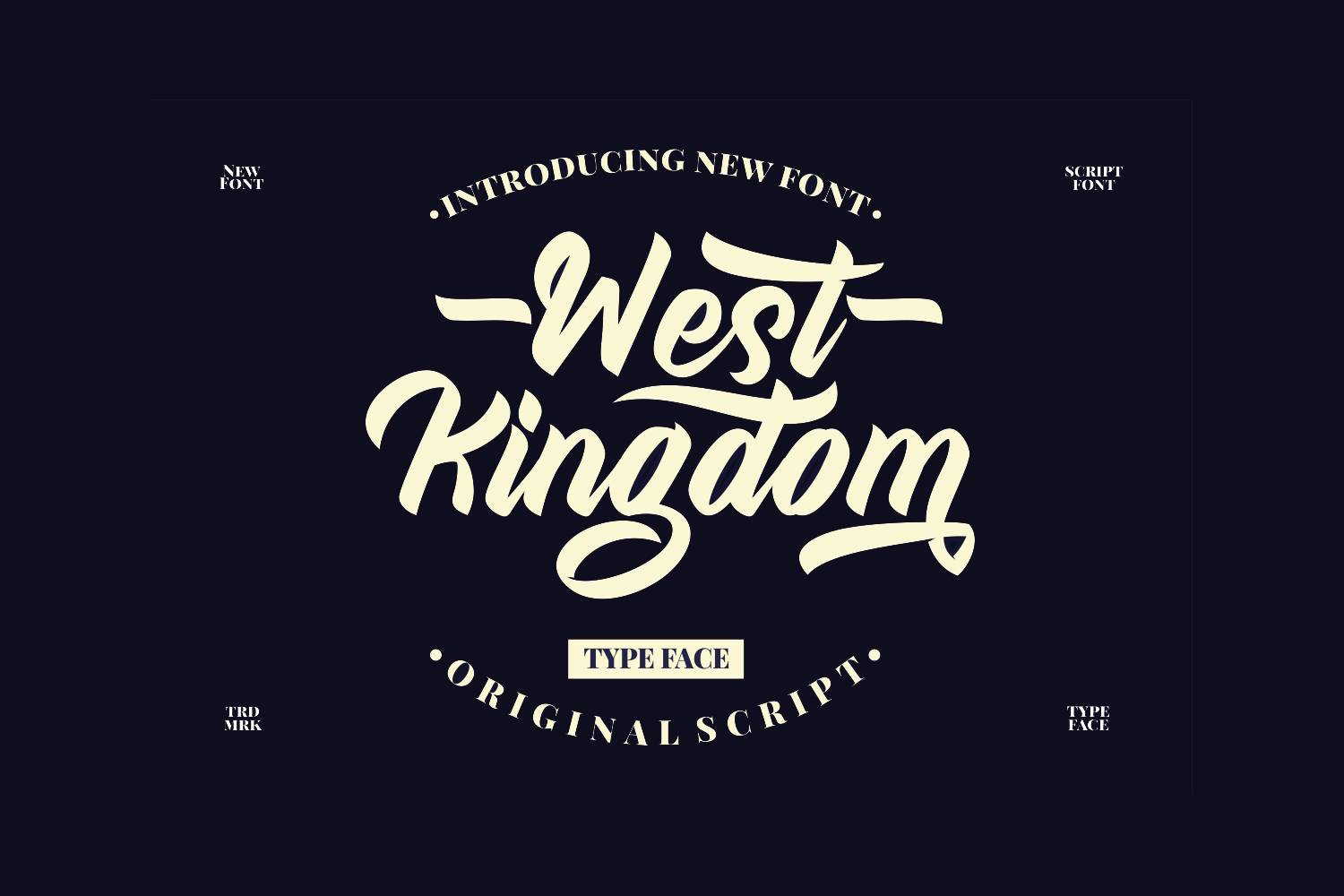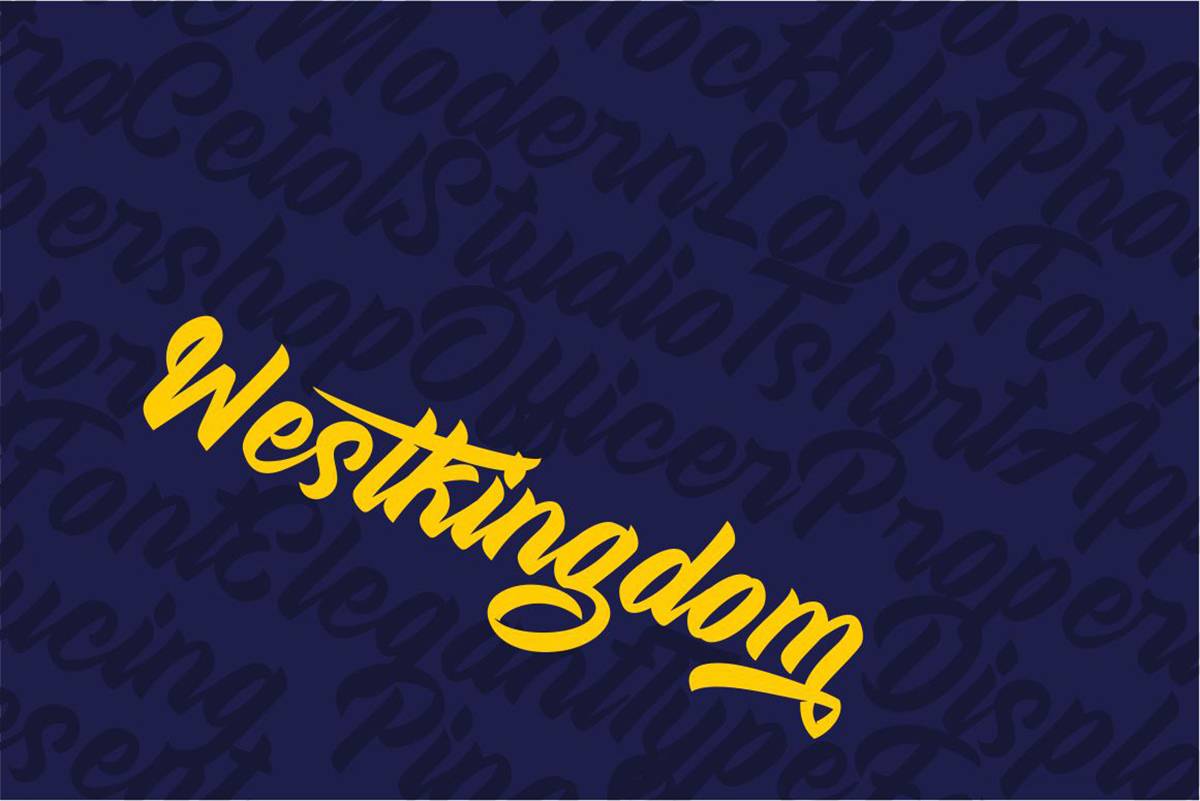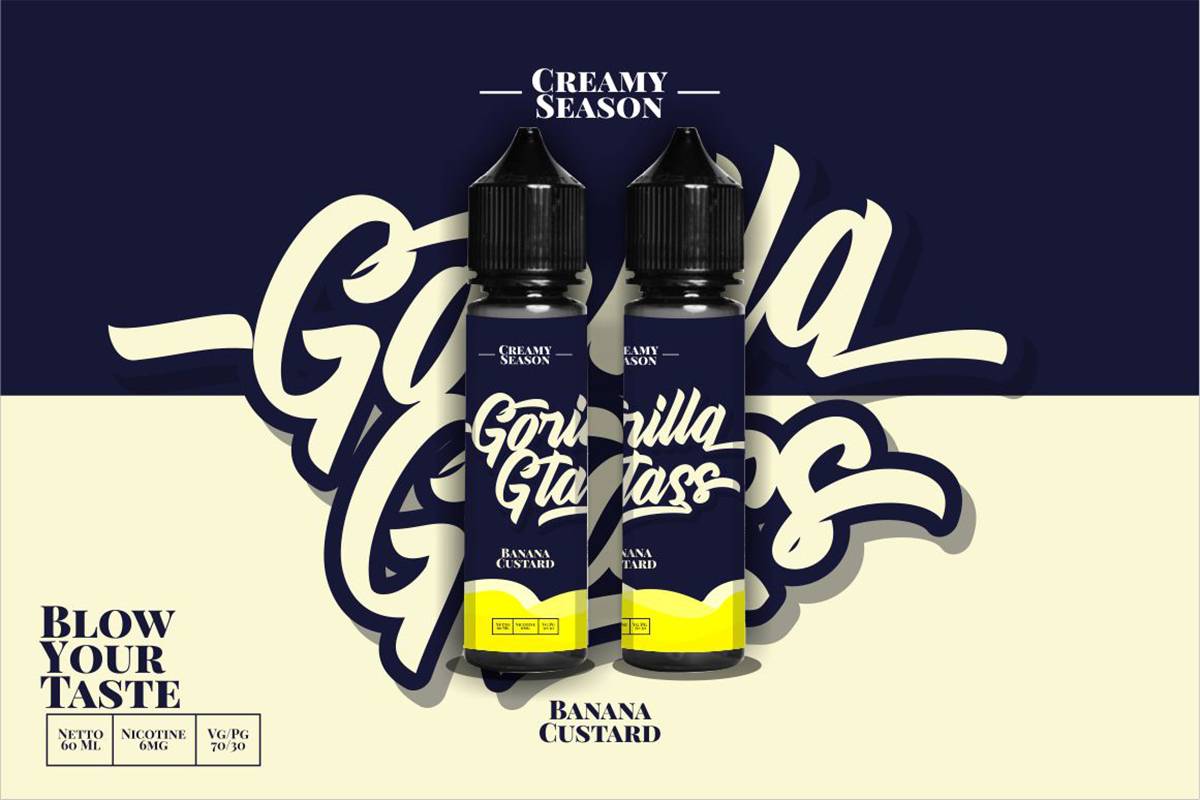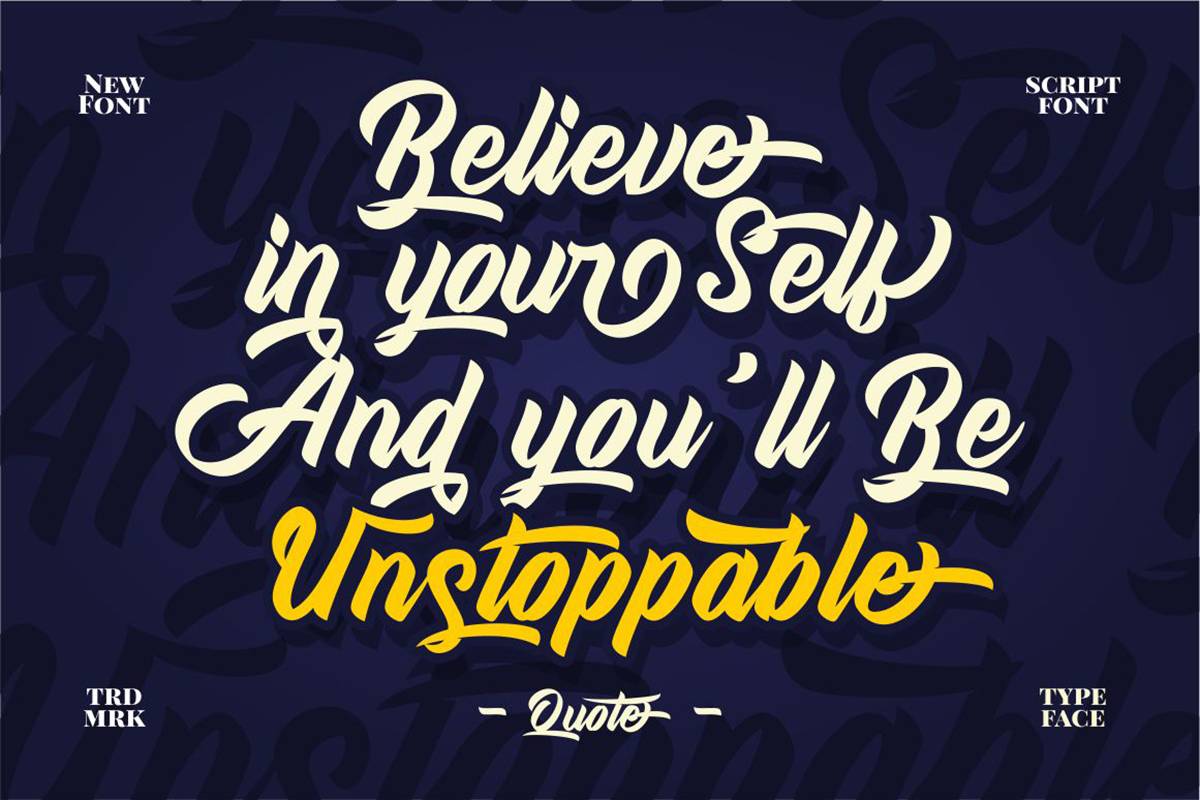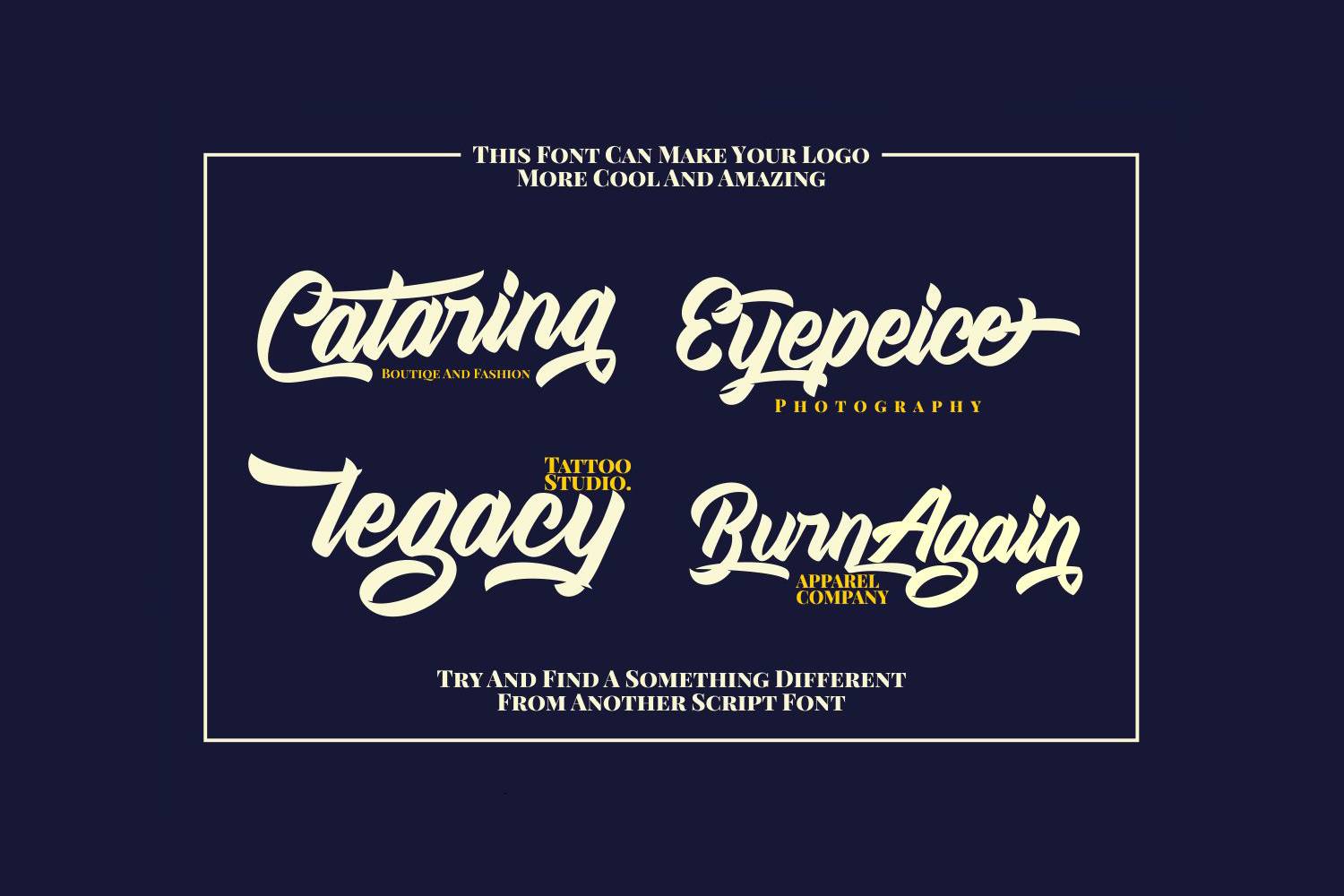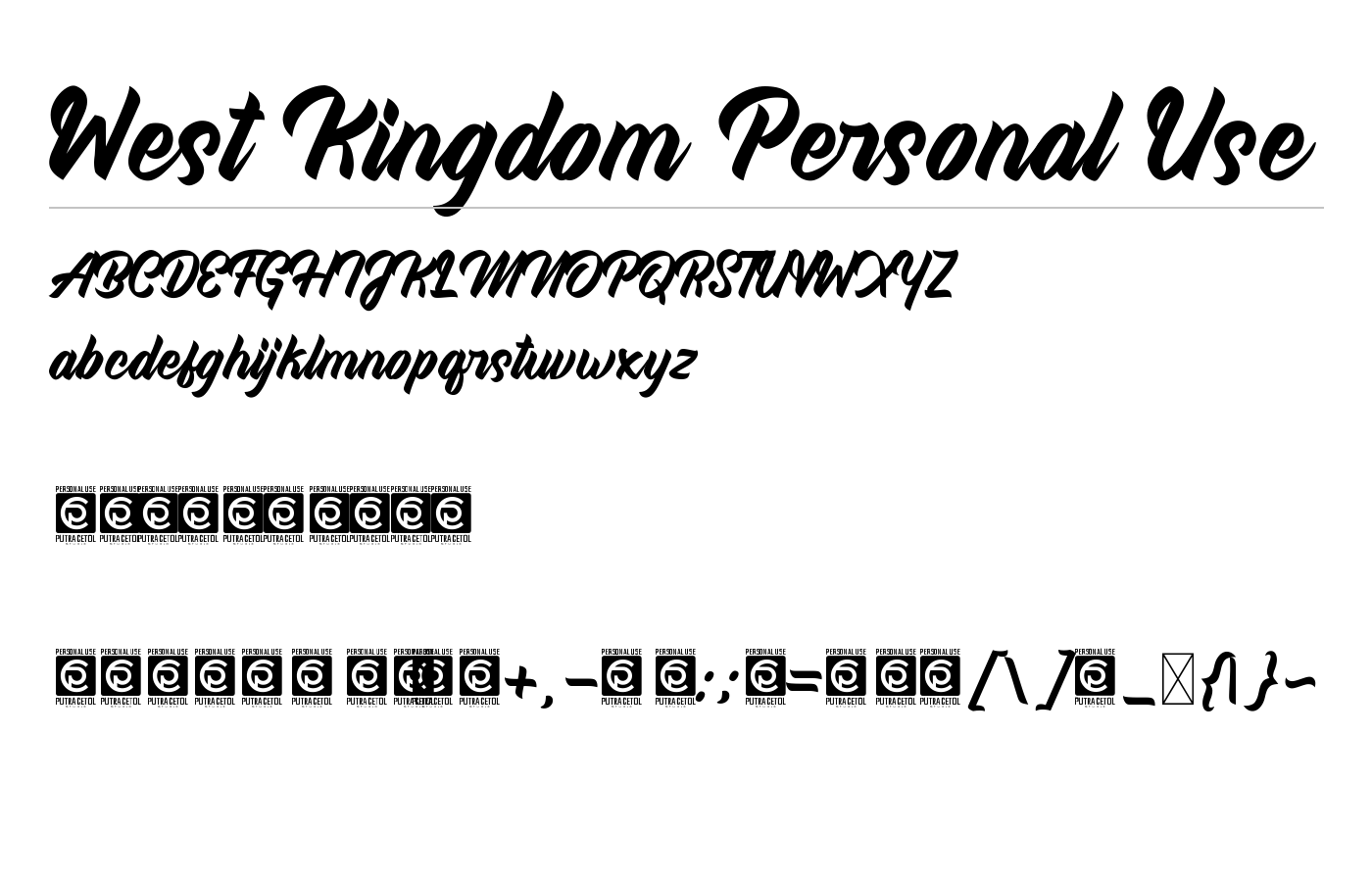
West Kingdom is a bold, brush script font that exudes a lively and handcrafted feel with its fluid, connected strokes and slightly slanted angles. Its vibrant personality works beautifully for creative headlines, branding, and casual designs where a dynamic, energetic vibe is desired, making it ideal for logos, posters, and packaging that seek a personal, approachable touch.
West Kingdom Font
About West Kingdom Font
| Font family | West Kingdom Font |